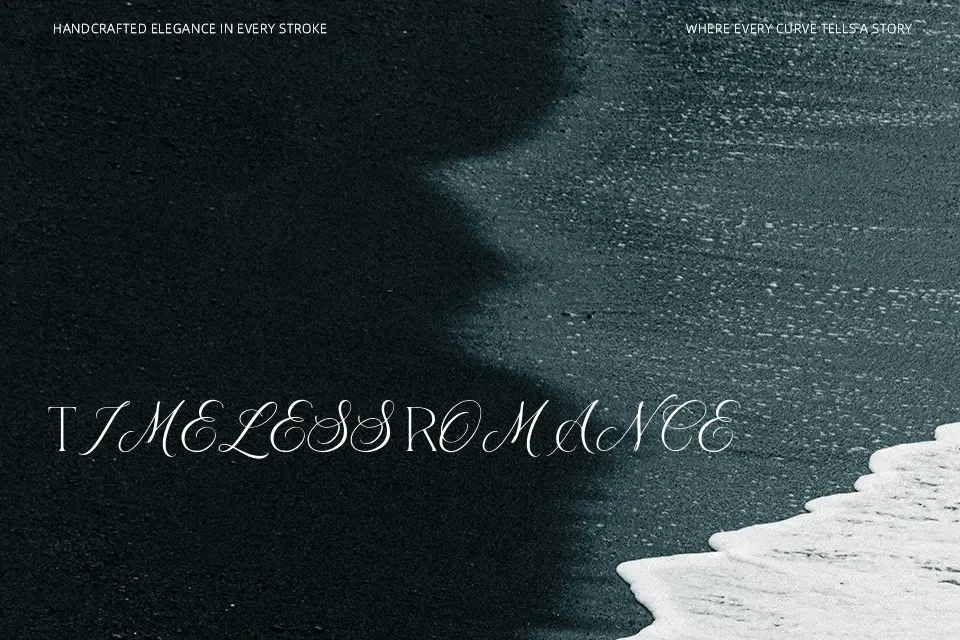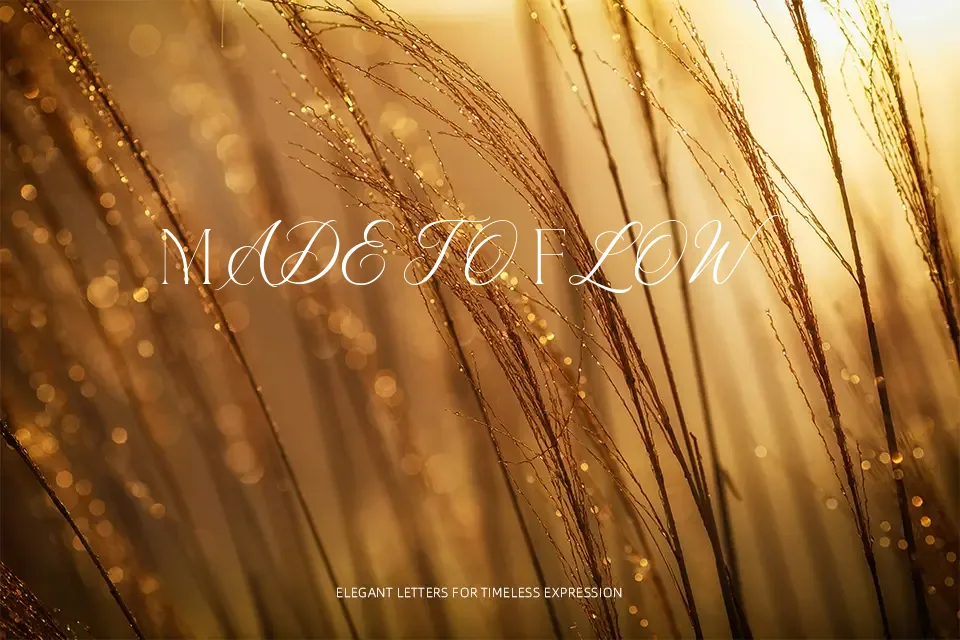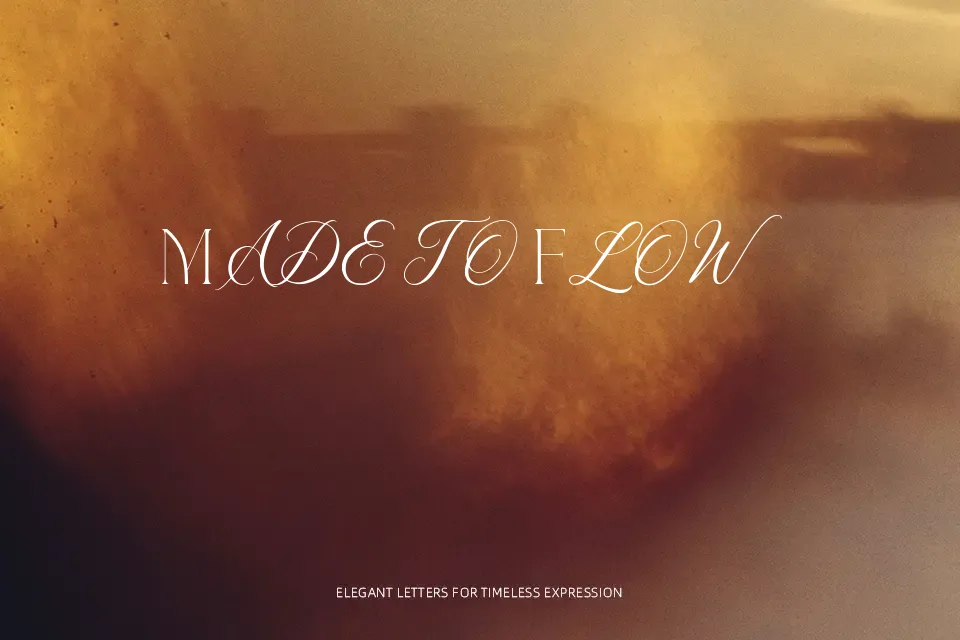
Beauty Luxury Font
Beauty Luxury mixes modern calligraphy curves with subtle serif touches, using flowing strokes, generous swashes, and noticeable contrast between thick and thin lines. The letters feel decorative and feminine, with tight connections and ornate terminals that stand out at larger sizes. It works well for wedding stationery, boutique branding, cosmetics packaging, and fashion lookbook covers where a sense of luxury and romance matters more than strict readability. However, the decorative forms and swashes make it harder to read in long paragraphs or small text, so it is less effective for body copy or dense editorial layouts. Use it when you want a striking, upscale script accent, not when clarity at small sizes is your main concern.
wedding invitation titles
beauty or fashion logo wordmarks
luxury product packaging labels
social media quote graphics
formal corporate reports
small UI labels or buttons
data-heavy editorial layouts
Perfect for branding, fashion, and headline, with a creative and calligraphy style.